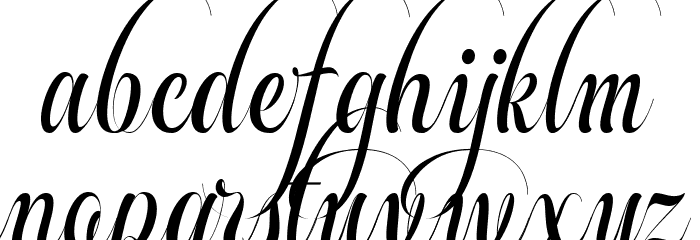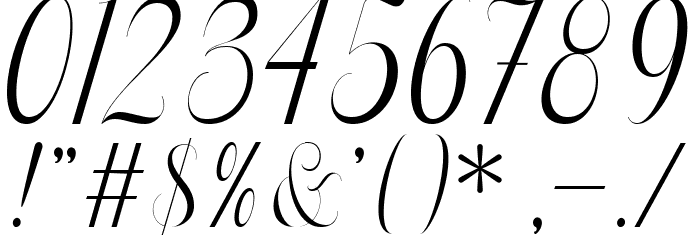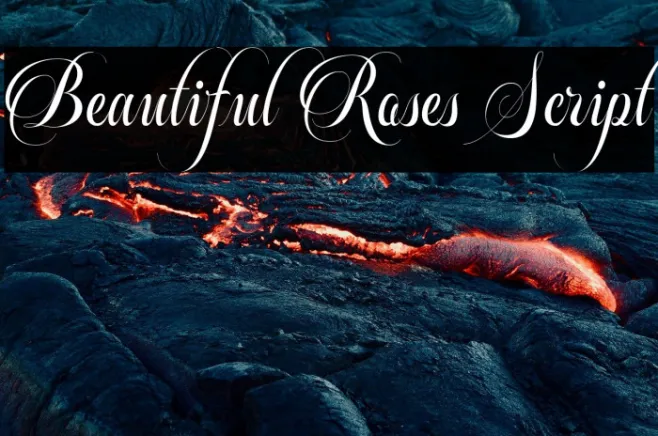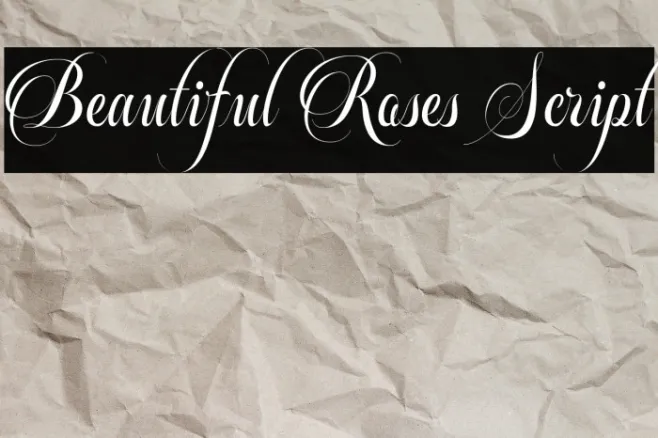
Beautiful Roses Script Font
This elegant script font features flowing, interconnected letters with a sophisticated and graceful appearance. The uppercase letters are ornate, with sweeping curves and flourishes that add a touch of luxury and refinement. The lowercase letters maintain a consistent style, with smooth transitions and a fluid motion that enhances readability while preserving the font's decorative nature. The numerals are designed with a similar flair, incorporating subtle curves and delicate lines. Special characters are thoughtfully crafted to match the overall aesthetic, making this font ideal for projects that require a touch of elegance and class.
An elegant script font with flowing, interconnected letters and ornate flourishes.
- Proposed Projects: Ideal for wedding invitations, luxury branding, elegant stationery, and high-end product packaging.
- Overall Style: Elegant, Decorative
- Use Case: Logos, Invitations, Branding